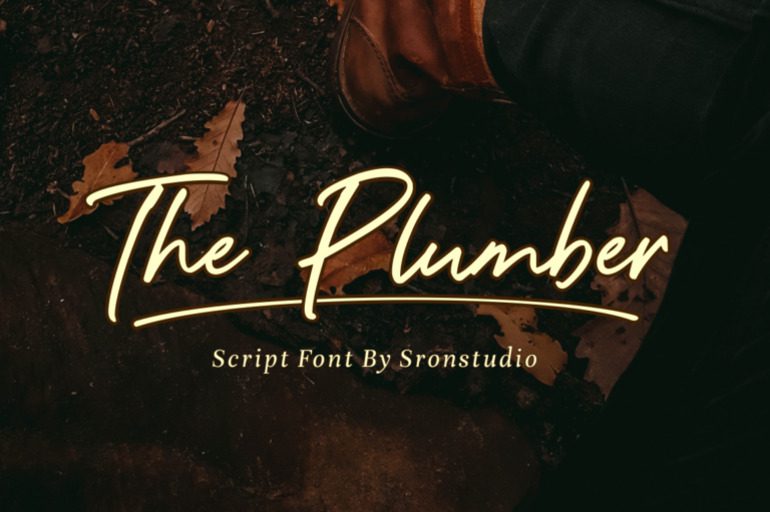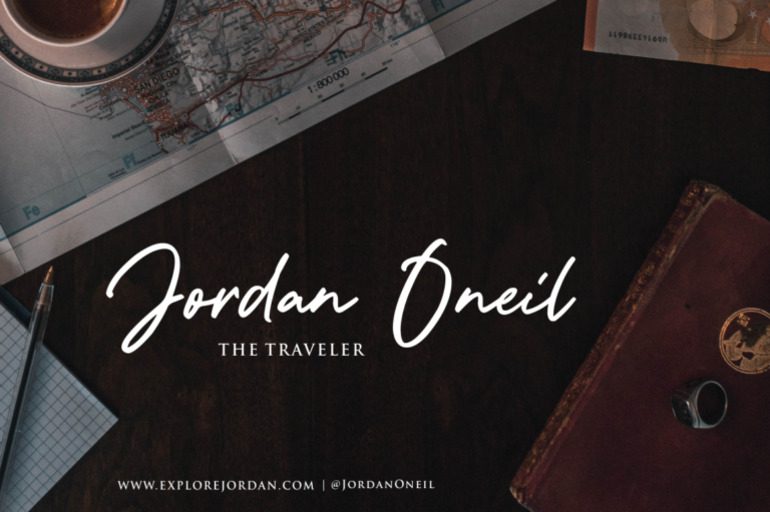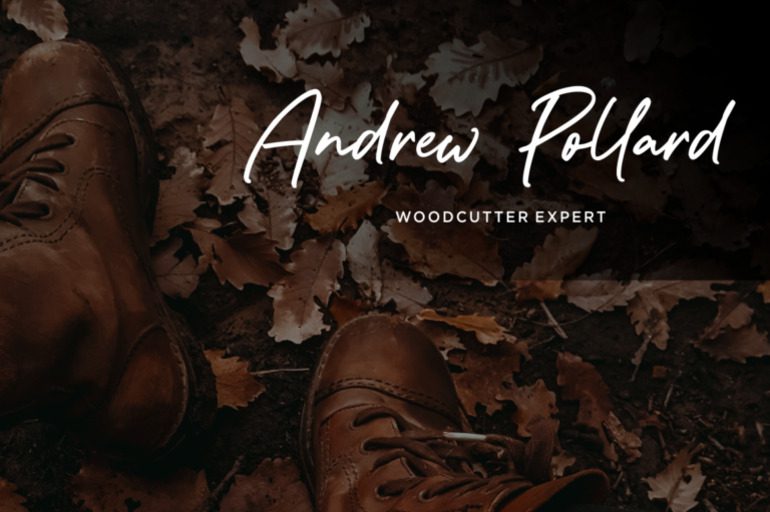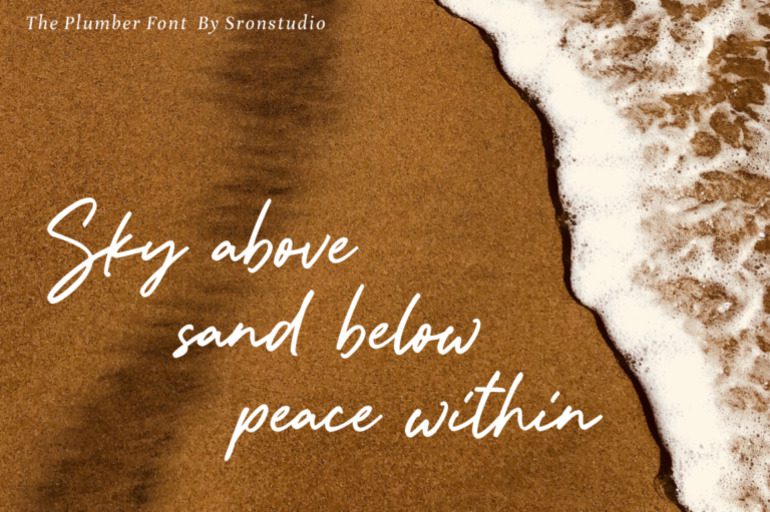
The Plumber Font
The Plumber Font is a bold and sturdy font with a mechanical feel. Its industrial-inspired design and strong lines evoke a sense of reliability and durability. Perfect for projects that require a rugged and masculine aesthetic, such as construction, automotive, or industrial branding.